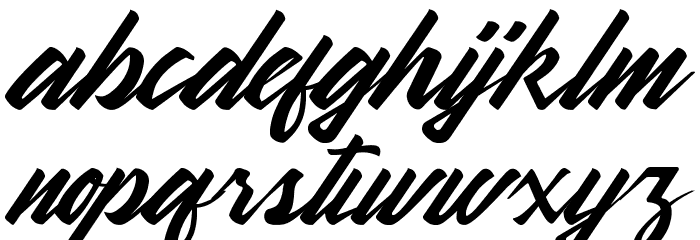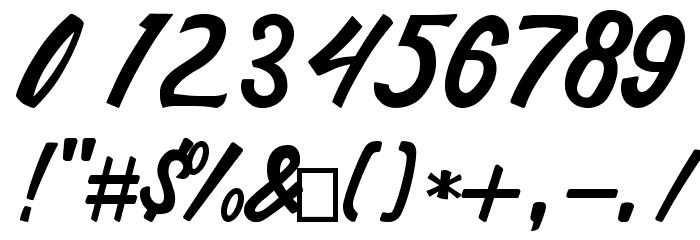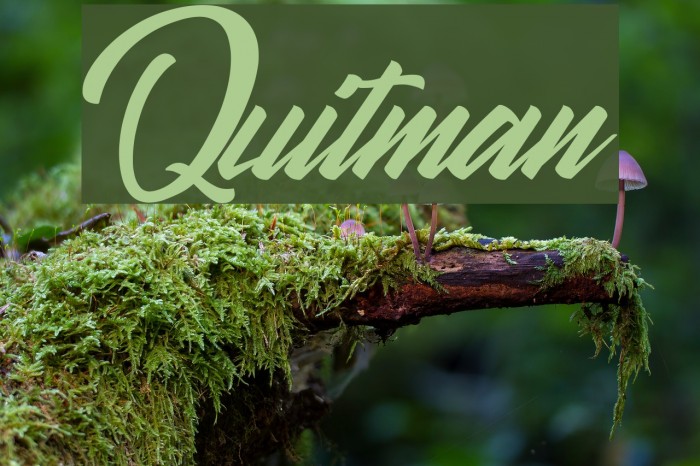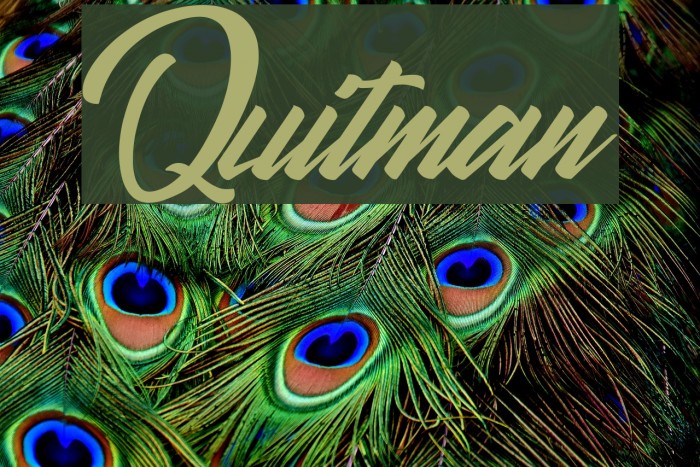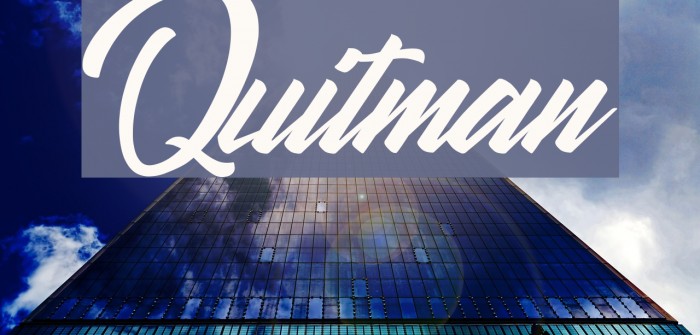
Quitman Font
This font exudes a dynamic and energetic style, characterized by its bold and flowing script. The letters are interconnected, creating a sense of movement and fluidity. The uppercase letters are particularly striking, with sweeping curves and dramatic flourishes that add a touch of elegance. The lowercase letters maintain a consistent rhythm, enhancing readability while preserving the font's artistic flair. Numbers and special characters are crafted with the same attention to detail, ensuring a cohesive appearance across all elements. This font is ideal for projects that require a personal and expressive touch.
A bold, flowing script font with interconnected letters and dramatic flourishes.
- Proposed Projects: Ideal for branding, invitations, greeting cards, and any project that requires a personal and expressive touch.
- Use Case: Logos, Headlines, Invitations